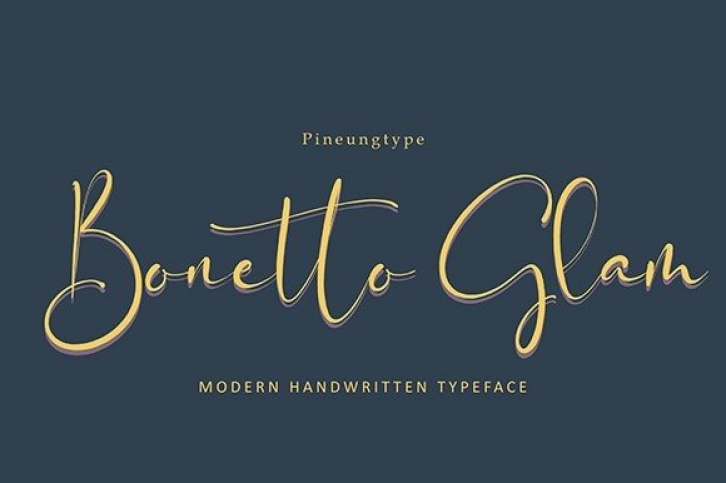
Bonetto Glam has a modern shape and the writing style is very stylish. You can create many beautiful typographic designs in an instant like branding, web design and editorial, prints, crafts, and quotes. It’s great for logotypes, wedding invitations, romantic cards, labels, packaging, the spelling of names, and others. Add to your most creative ideas and watch how they bring them to life!